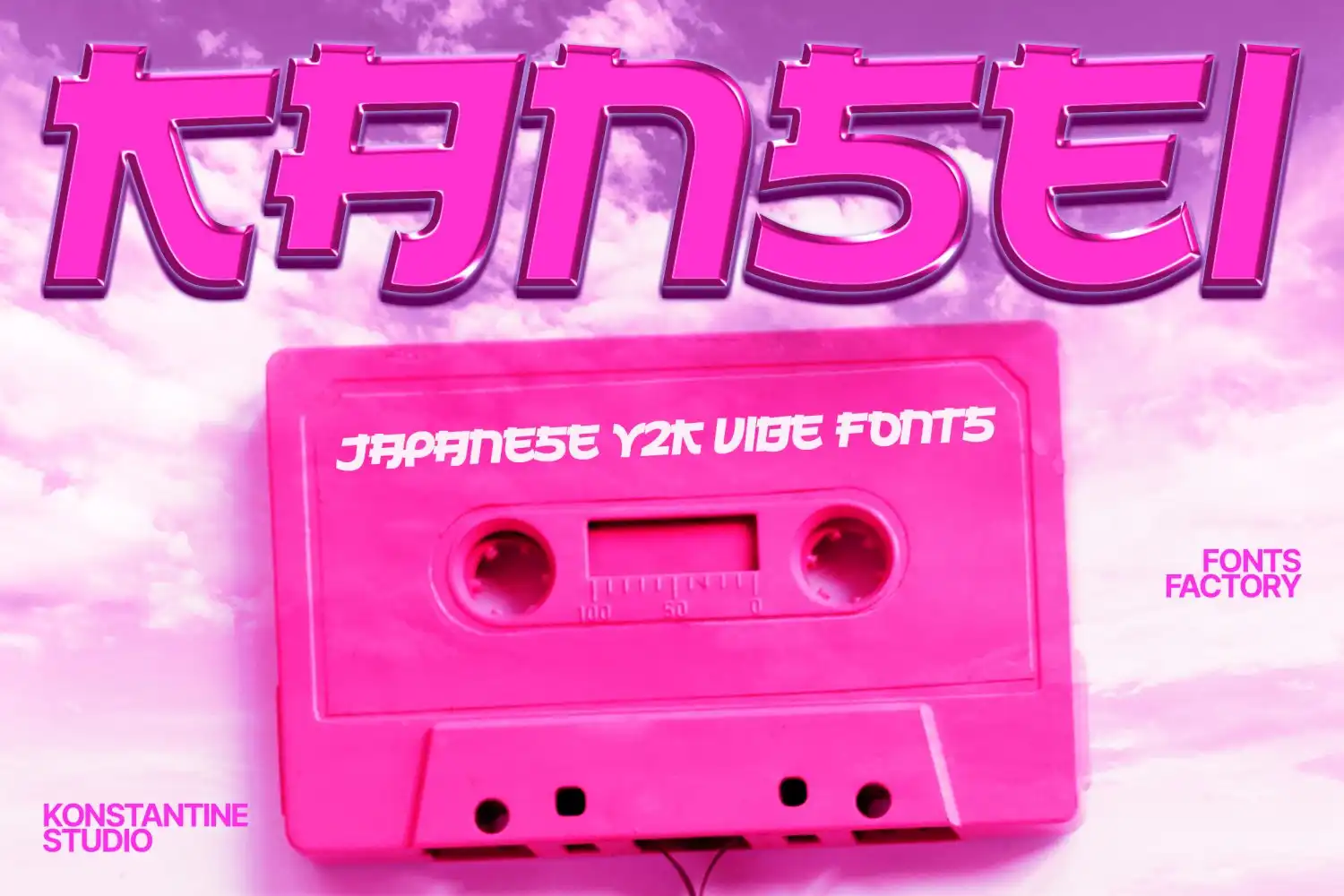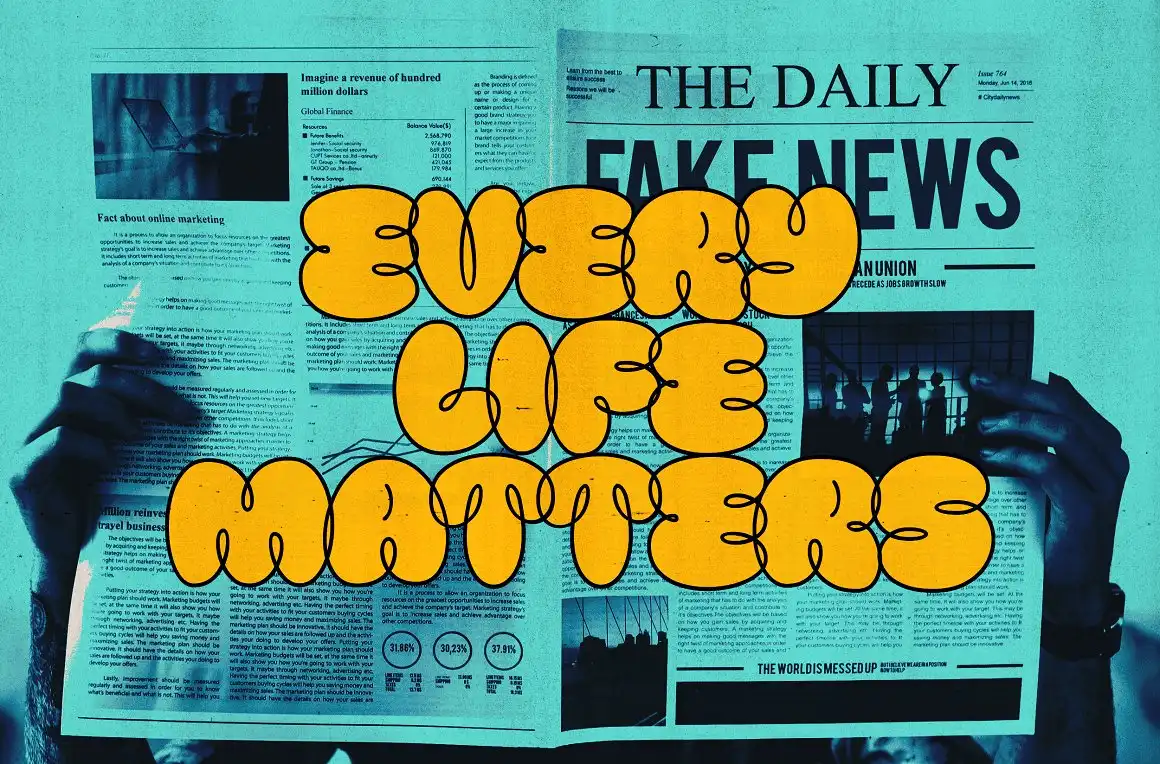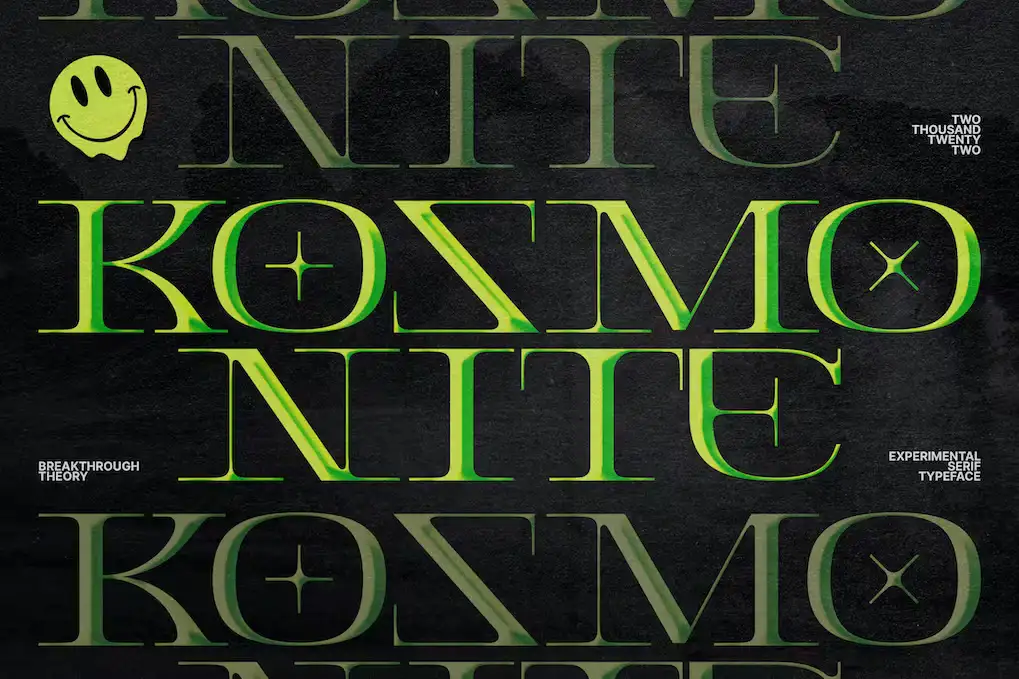
Calling all type lovers and digital rebels! 🎨 Are you tired of the same old boring fonts that everyone uses? Get ready to level up your typography game with the KonstantineStudio Collection, a treasure trove of wildly creative and experimental fonts that will make your designs scream with personality. ✨ From futuristic vibes to nostalgic Y2K charm, this collection is a goldmine for anyone looking to break the mold.
Why Use These Experimental Fonts?
Your next project deserves more than just a standard typeface. 🚀 Whether you’re designing a bold album cover, a sleek brand identity, or a vibrant poster, these fonts add an instant “wow” factor. They’re perfect for making your work stand out in a crowded digital space, helping you capture the exact mood—whether it’s edgy, elegant, or playful—with just a single keystroke.
Top 5 KonstantineStudio Font Picks
Kosmonite – Experimental Serif Fonts
Say hello to Kosmonite, the typeface that feels like a cosmic journey! 🚀 This experimental serif blends a bold, wide body with classic elegance, creating a statement piece that’s perfect for headlines and logos. It’s like the cool, sophisticated cousin of your favorite serif fonts—ready to elevate your editorial designs or luxury branding instantly.
Discopia – Futuristic Tech Fonts
Plug into the future with Discopia! 🎉 This font pack takes you on a wild ride through a neon-lit, retro-disco-meets-tech universe. Imagine sleek, futuristic lines that would look right at home on a sci-fi movie poster or a cutting-edge tech startup’s website. It’s bold, it’s vibrant, and it’s absolutely dripping with energy.
Mastone – Urban Bubble Fonts
Get ready to pop with Mastone! 🟣 These urban bubble fonts are pure street-style magic, bringing a playful, graffiti-inspired energy to your projects. Whether you’re designing a gritty poster, a funky album cover, or a video game UI, these rounded, bold letters will add that perfect touch of modern, urban cool. It’s like capturing the pulse of the city in a typeface!
Kansei – Japanese Y2K Fonts
Channel the ultimate Y2K nostalgia with Kansei! 🌸 This ALL CAPS font is a beautiful fusion of Japanese typography and early 2000s aesthetics. Think bubblegum pop, neon lights, and anime vibes all rolled into one gorgeous typeface. It’s the perfect pick for fashion lookbooks, social media graphics, or any project that needs a dash of playful, retro-future flair.
Techwear – Retro Futuristic Fonts
Step into the cyberpunk dream with Techwear! ⚡ This font is pure 80s synthwave nostalgia blended with a modern, sleek edge. Perfect for tech brands, gaming logos, or any project that needs a gritty, neon-lit atmosphere. It’s like wearing a holographic jacket—cool, confident, and totally futuristic.
The KonstantineStudio Collection is an absolute must-have for any designer looking to break away from the ordinary. 🎯 With these five distinct fonts, you can instantly transform any project into a visual masterpiece. Whether you’re aiming for elegance, urban edge, or futuristic vibe, these typefaces are your secret weapon. Don’t settle for basic—grab your favorites today and start creating something unforgettable! 🚀